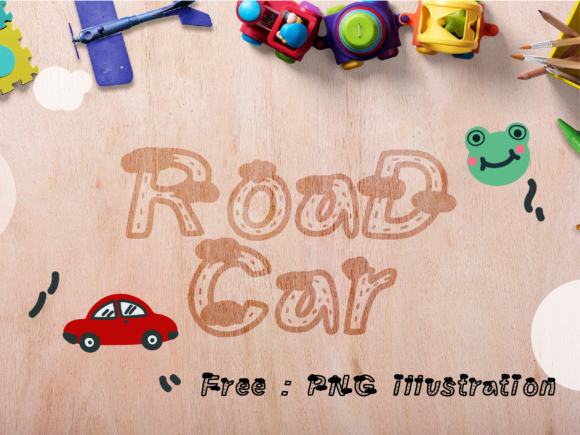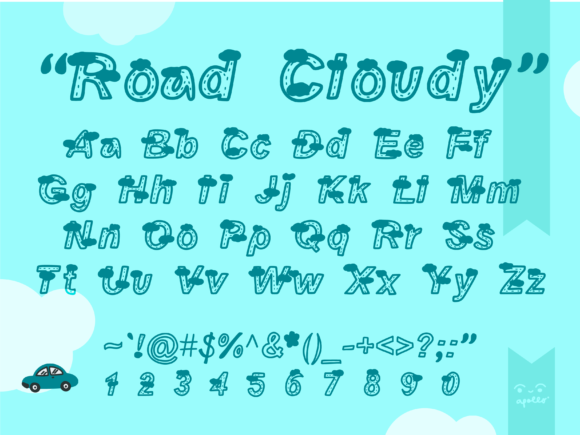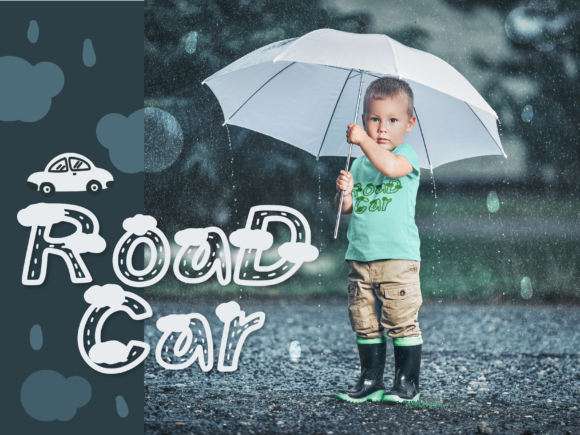
Introduction to Road Cloudy Font
Have you ever been stuck on a creative project, searching for the perfect design element to bring your vision to life? I know I have. But then, like a ray of sunshine on a cloudy day, I stumbled upon the Road Cloudy Font – a delightful, fluffy font that puts a smile on every character of the alphabet. It’s a game-changer for designers, and I’m excited to share its story with you.
As a design enthusiast, I’ve always been on the lookout for high-quality resources that can elevate my creative projects. The Road Cloudy Font checks all the boxes – it’s free to download, has a transparent background, and is perfect for digital or printable products. Its playful design makes it a great fit for kids’ products, but its versatility means it can also be used in a wide range of creative projects.
Key Features of Road Cloudy Font
- Unique blend of modern and cloudy design elements, perfect for creative projects and design resources.
- High-quality font with transparent background, allowing for seamless integration into various design elements.
- Comes in a single font size, suitable for a wide range of applications, including posters, flyers, and business cards.
- Designed to add a touch of creativity and sophistication to your design, making it an excellent choice for design resources and creative projects.
- Easy to use and customize, with a wide range of design possibilities, from headings to body text.
Honest Review: Road Cloudy Font
I recently had the chance to work with the Road Cloudy Font, and I must say it’s been a game-changer for my creative projects. This free download is a high-quality design resource that offers a unique and eye-catching style.
What works well about the Road Cloudy Font is its versatility. It can be used for a variety of projects, from logos to branding materials, and even for titles and headings. The font’s transparent background allows for seamless integration with other design elements, making it a great addition to any design portfolio.
- ✨ Unique and stylish design
- ✨ High-quality and clear typography
- ✨ Versatile and can be used for various projects
One limitation of the Road Cloudy Font is that it may not be suitable for all types of projects. Its bold and playful style may not be the best fit for more formal or professional designs. However, for creative projects that require a touch of whimsy and personality, the Road Cloudy Font is an excellent choice.
Overall, I’m impressed with the Road Cloudy Font and would highly recommend it to designers looking for a unique and high-quality design resource.
Tips for Getting the Most Out of Road Cloudy Font
Experiment with different font sizes, colors, and combinations to create a unique look. Use the font in conjunction with other design elements, such as images or graphics, to add depth and interest to your design.
The Road Cloudy Font is ideal for creative projects, such as logos, typography-based artwork, and social media posts. It’s also suitable for business presentations, reports, and brochures where a high-quality, professional design is required.
Alternatives to Road Cloudy Font
Cloudy with a Chance
Cloudy with a Chance is a versatile font suitable for creative projects that require a high-quality, transparent background. It’s perfect for designing banners, flyers, and social media graphics. Compared to Road Cloudy Font, Cloudy with a Chance offers a more subtle, gentle feel that’s ideal for delicate designs.